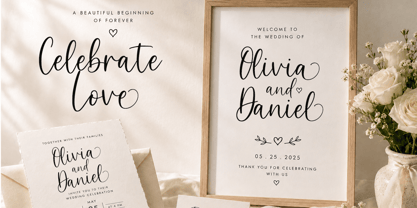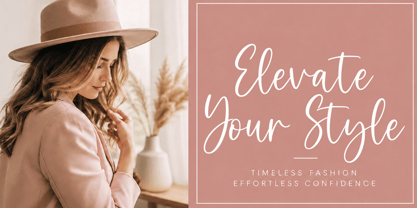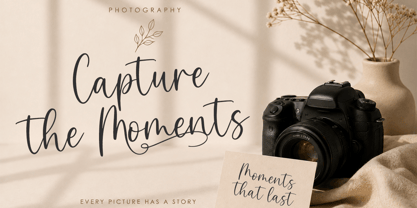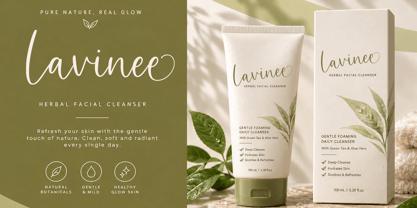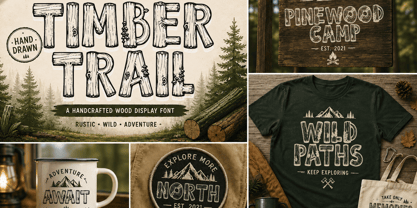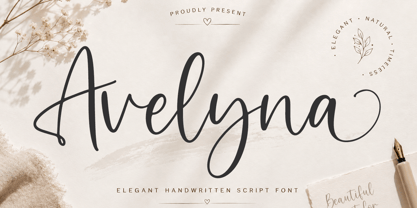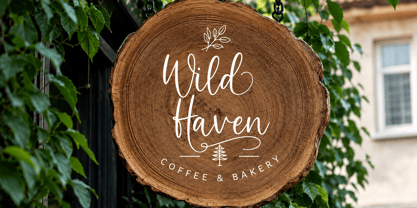
Avelyna
by Cocodesign
The Avelyna Font Family was designed by Muhammad Zaini and published by Cocodesign. Avelyna contains 2 styles and family package options. More about this family
Elegant Handwritten Script is a graceful and expressive handwritten script font characterized by smooth flowing strokes and natural movement, resulting in an elegant handcrafted character. The refined letterforms create a sophisticated yet organic look, making it ideal for modern, romantic, and lifestyle-inspired designs. This versatile script font adds a personal handwritten touch to typography while maintaining a polished appearance, perfect for branding, stationery, invitations, packaging, quotes, apparel, and creative compositions. BONUS EXTRA FONT: Included is a Rustic Wood Display Font as a bonus. This additional font features bold handcrafted letterforms inspired by natural wood, vintage outdoor signs, forests, camping, and adventure aesthetics. The bonus font adds a rugged and handmade character that complements a wide variety of outdoor, rustic, vintage, and adventure-themed designs. Font Style: Elegant • Handwritten • Script • Graceful • Natural • Handmade • Rustic • Vintage • Outdoor